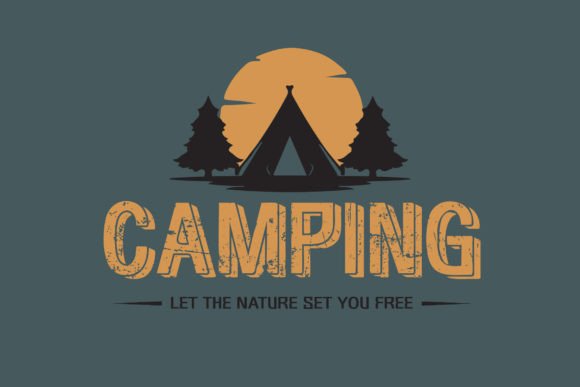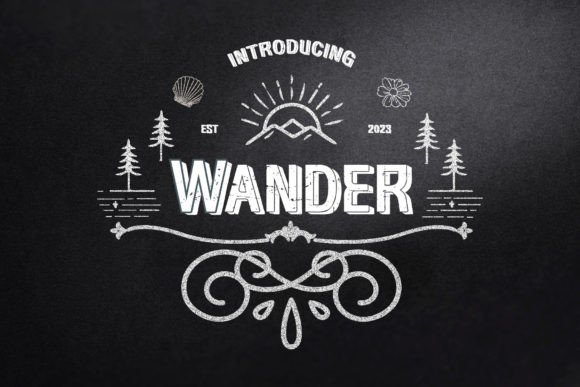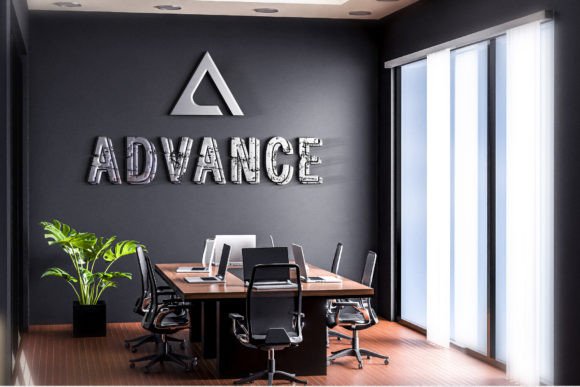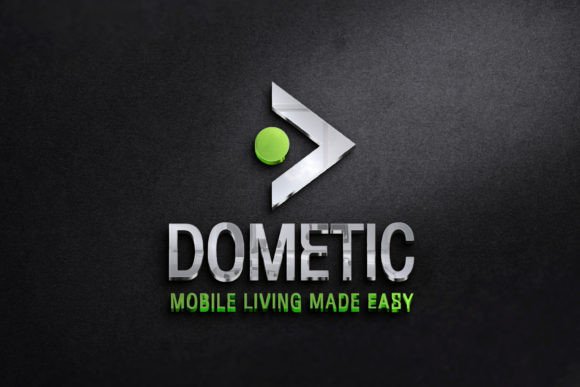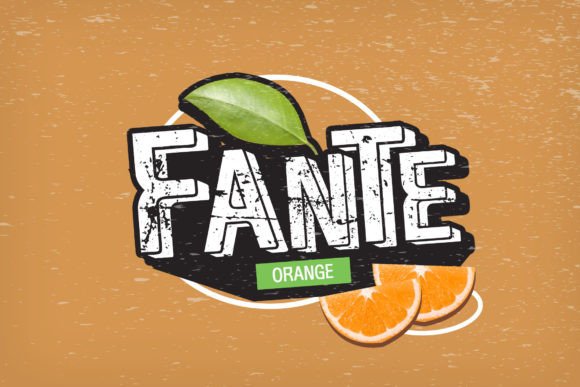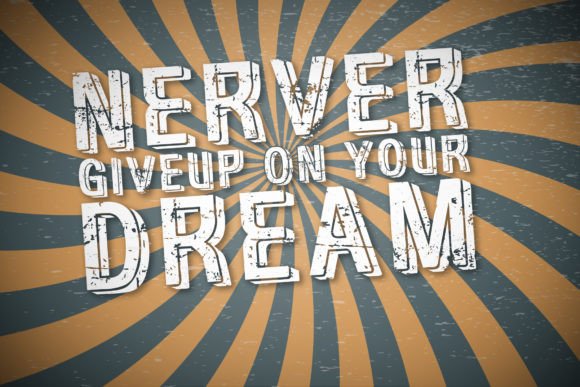
The Call of Adventure: Unlocking the Power of Vintage Design
Do you ever find yourself scrolling through design inspiration boards, feeling like something’s missing, yet you can’t quite put your finger on what it is? That’s where the magic of a well-crafted font comes in. Imagine adding a dash of nostalgia and excitement to your next project, transporting your audience to a bygone era of adventure and exploration.
Enter Adventure Font, a vintage and retro display font that’s about to become your new go-to companion. This charming font is designed to brighten up each of your designs, adding a touch of sophistication and playfulness that’s hard to resist. Whether you’re a seasoned designer or just starting out, Adventure Font is a valuable addition to your toolkit, guaranteed to elevate your projects and leave a lasting impression.
Key Features of Adventure Font
- Font Family: A unique blend of fantasy and adventure elements, perfect for creating a sense of excitement and exploration.
- Unicode Support: Includes a wide range of Unicode characters, including Latin, Greek, and Cyrillic scripts, making it a versatile font for global designs.
- Style Variations: Comes with multiple style variations, including bold, italic, and regular, allowing designers to create a range of visual effects.
Adventure Font Review
Overall, I was excited to dive into the “Adventure Font” and see what it had to offer. As a designer, I appreciate a good font that can elevate a project and bring it to life. ✨ Here are some things that worked well for me:
- The font’s adventurous feel is perfect for outdoor or travel-themed projects.
- The bold and playful styles make it great for headlines and titles.
- The font is highly customizable, with a wide range of options for color, size, and style.
However, there are some limitations to consider ⚠️:
- The font may not be as legible in smaller sizes or at a distance.
- The bold styles can be overwhelming if not used thoughtfully.
- The font’s adventurous feel may not be the best fit for every project.
Overall, I think the “Adventure Font” is a great addition to any designer’s toolkit. While it may have some limitations, it’s a fun and versatile font that can add a lot of personality to a project. With some careful consideration and use, it can be a real showstopper.
The Adventure Font is perfect for:
- Travel and tourism brochures
- Outdoor and adventure sports marketing materials
- Travel blogs and social media posts
- Adventure-themed events and festivals
Remember to use the Adventure Font consistently throughout your design to create a cohesive and engaging visual identity.